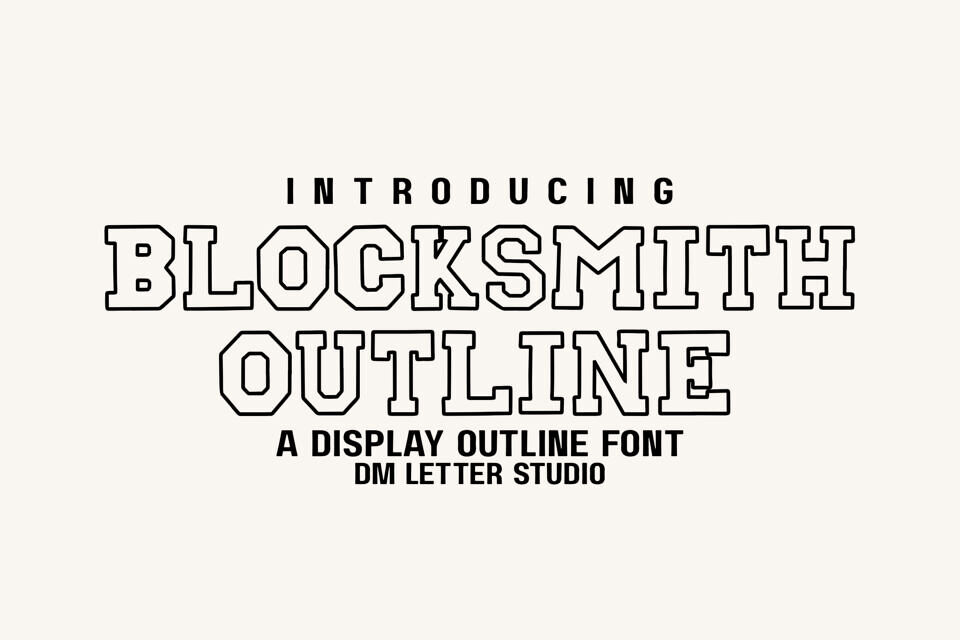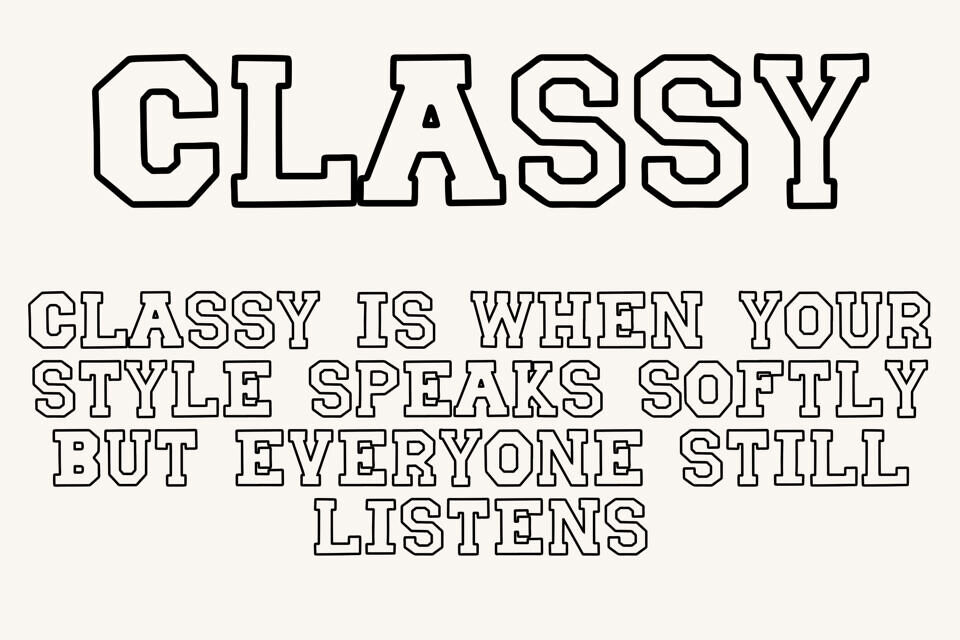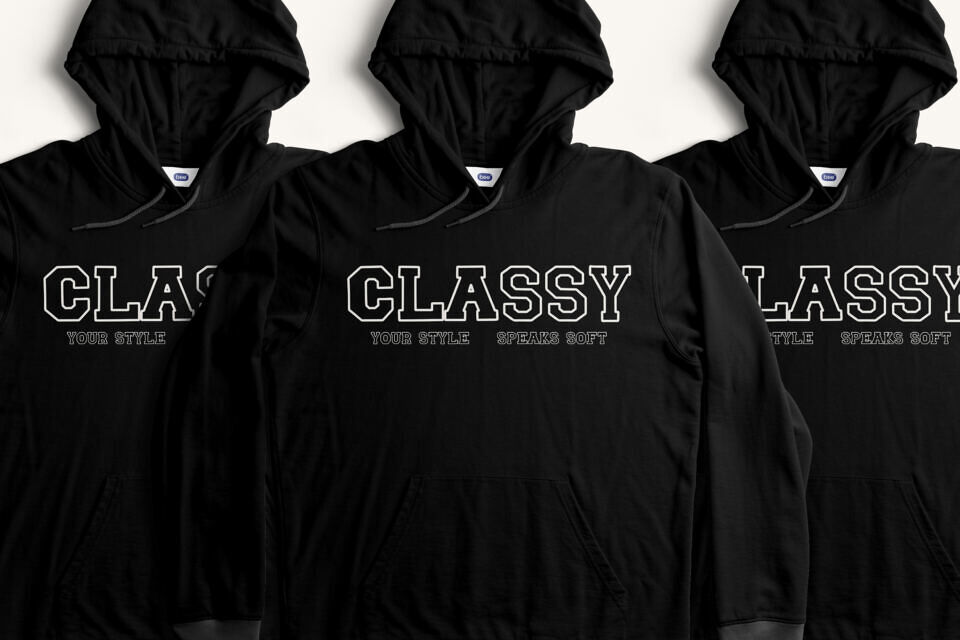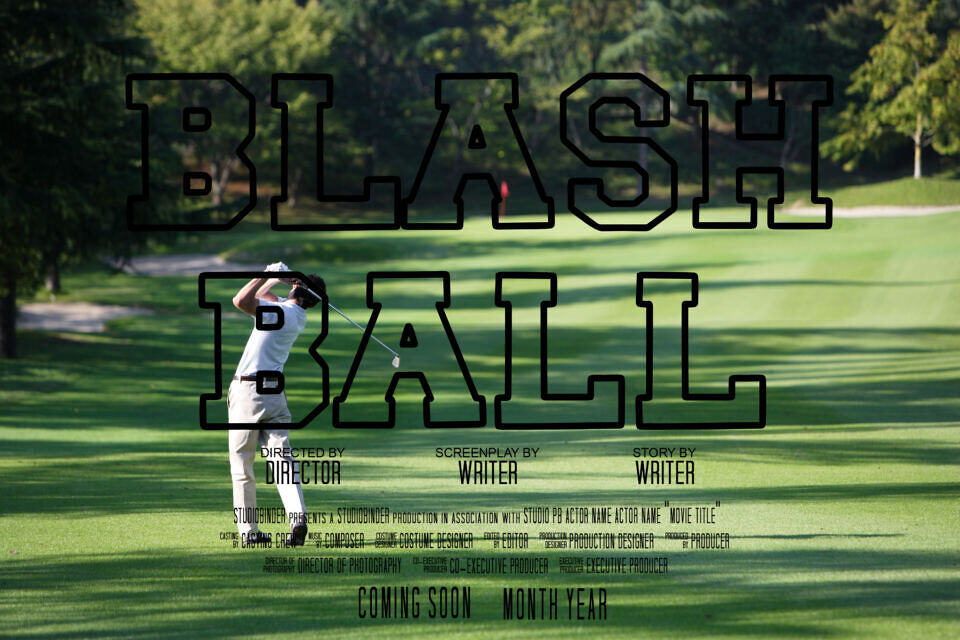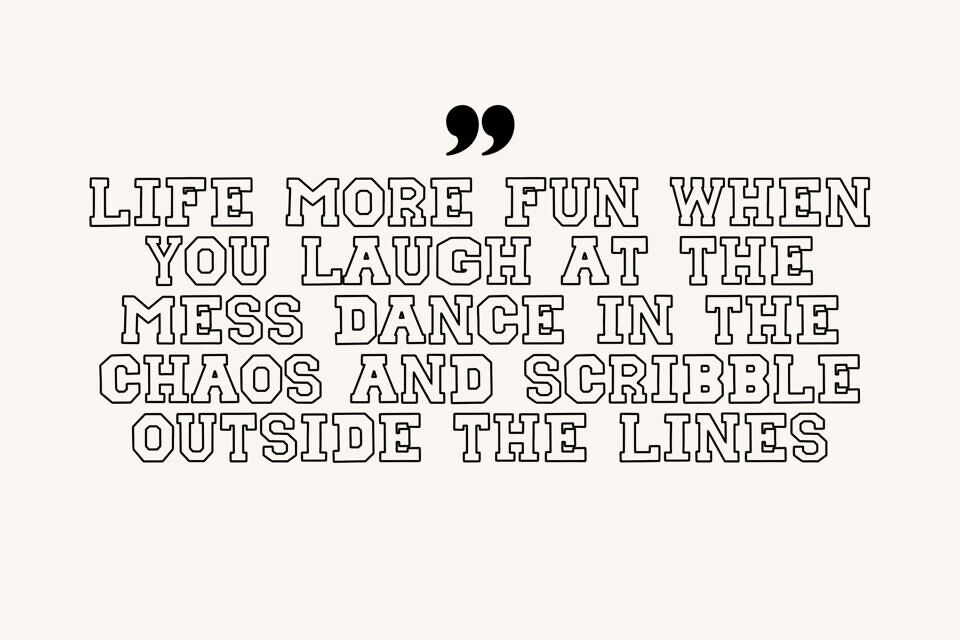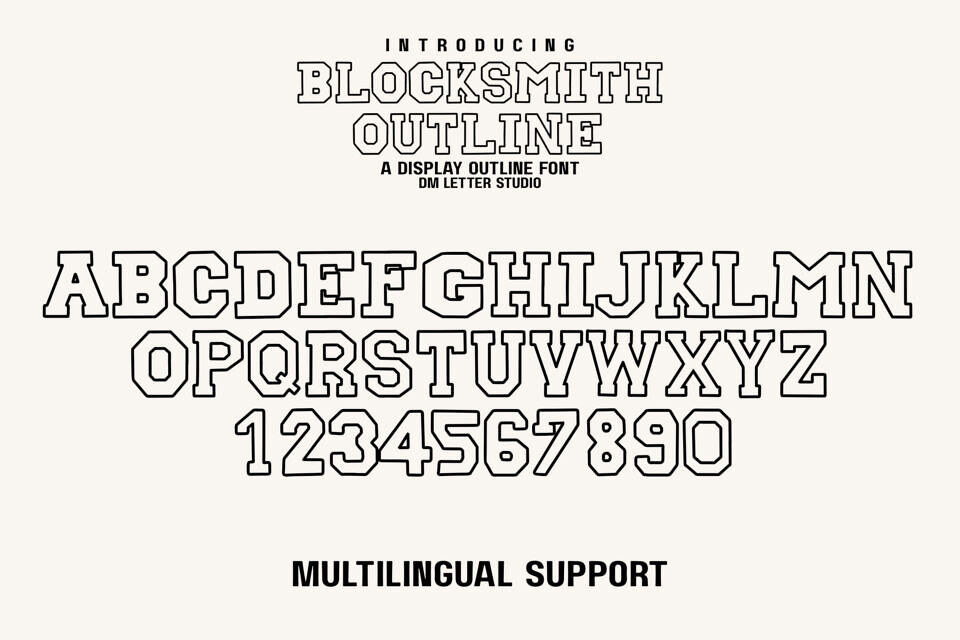
Blocksmith Outline is the outlined version of the original Blocksmith Varsity font—bringing the same collegiate power, now with sharp outer strokes for extra impact. Perfect for sports logos, jersey numbers, varsity jackets, and bold design projects, this font keeps the energy of classic varsity lettering while adding a layer of dimension and style.